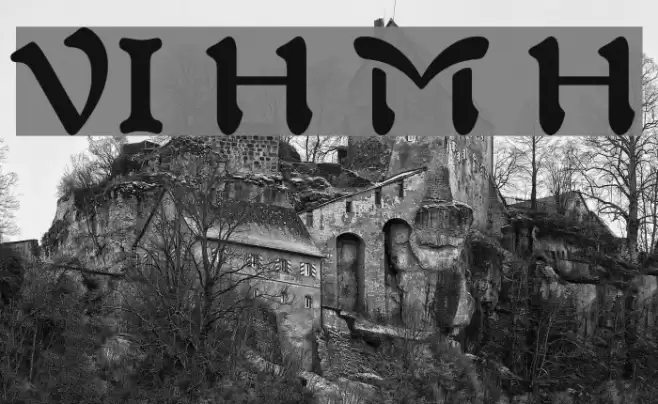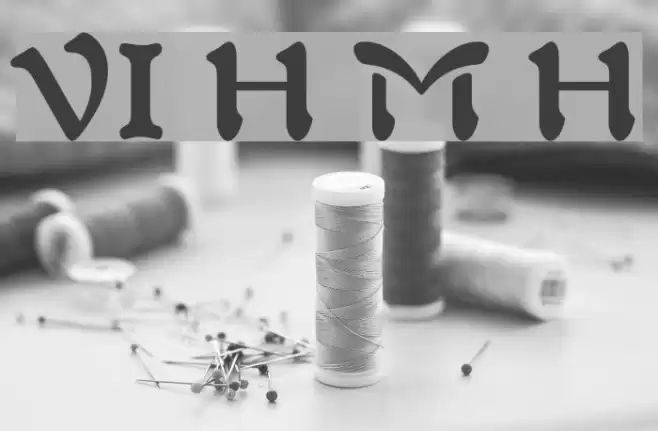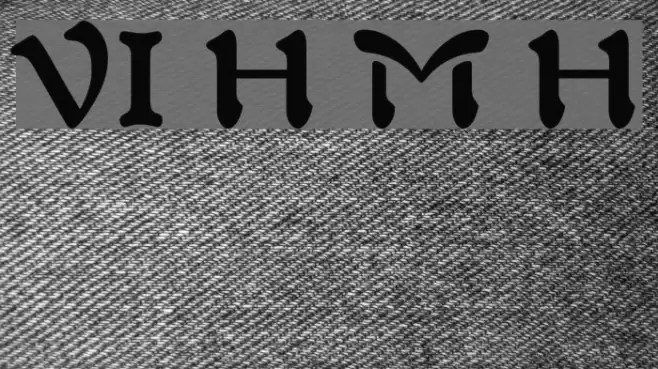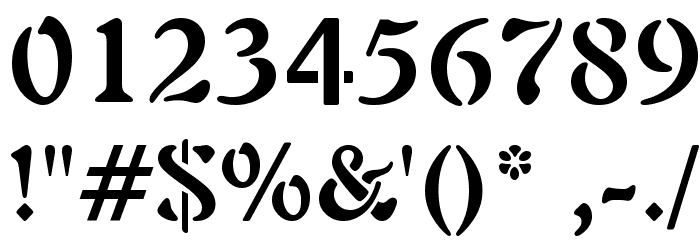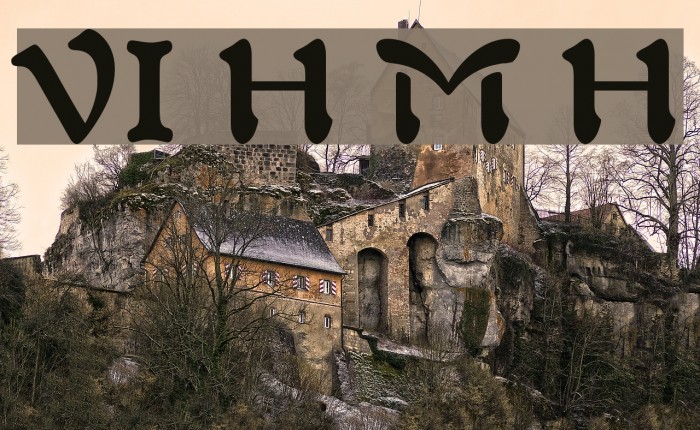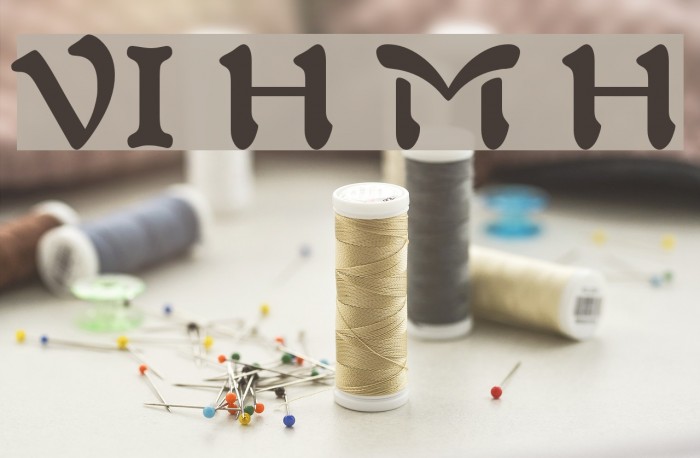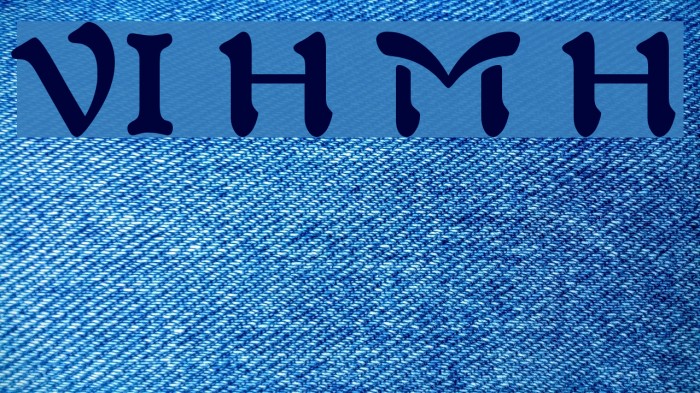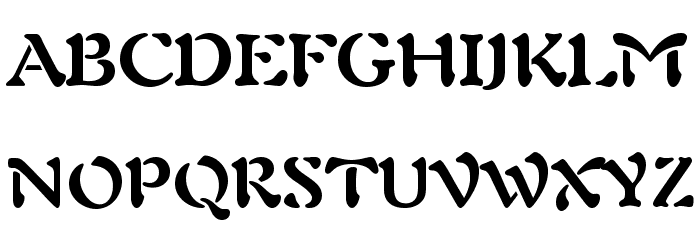
VI Hong Mai Hoa Font
VI Hong Mai Hoa Description
This font features a bold and decorative style with intricate cut-out details that give it a unique and artistic flair. The characters are designed with a high contrast between thick and thin strokes, creating a striking visual impact. The uppercase letters have a strong presence, while the lowercase letters maintain a consistent style with the same decorative elements. The numerals and special characters are equally ornate, making the font suitable for creative and expressive design projects. Its distinct appearance makes it ideal for capturing attention and adding a touch of elegance and sophistication.
A bold, decorative font with intricate cut-out details and high contrast strokes from Uncategorized fonts.